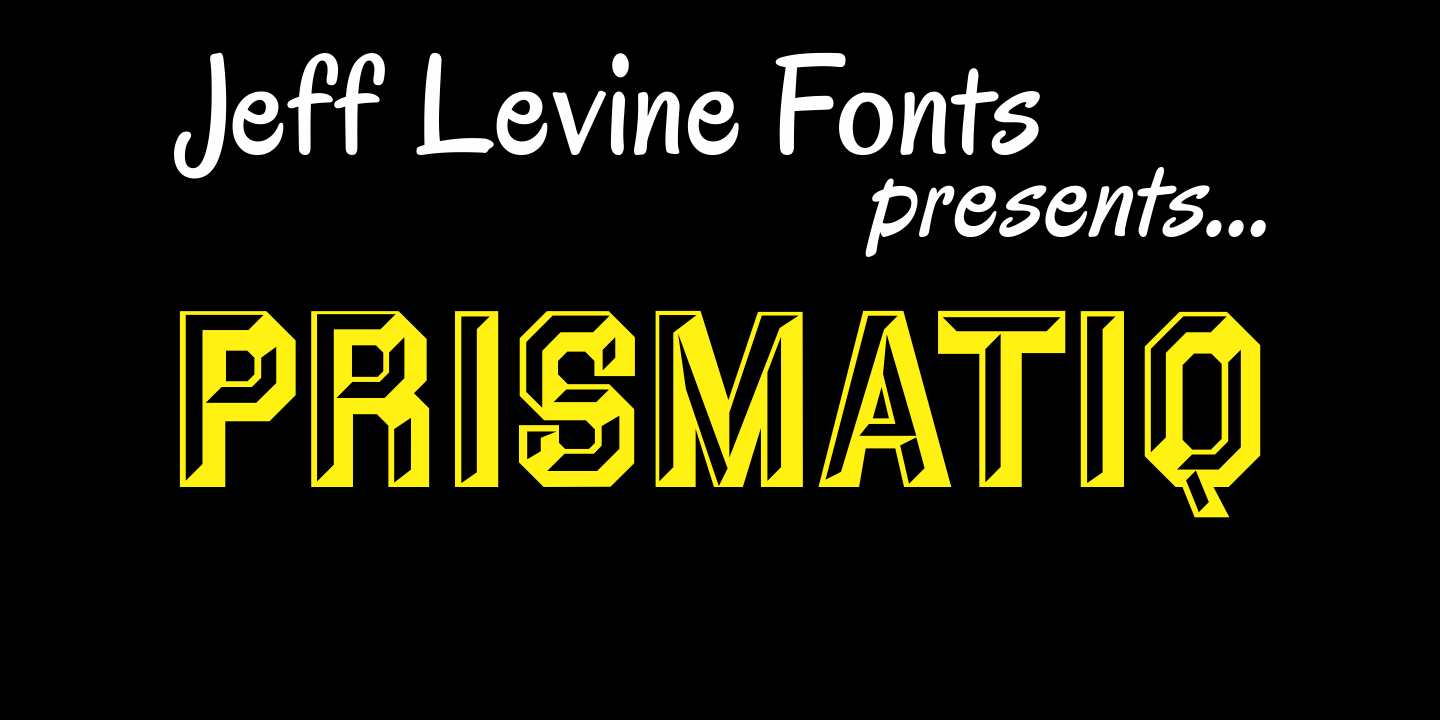
Prismatiq
Prismatiq JNL was modeled from lettering found in a French alphabet book from the turn of the last century - the type sample appearing online at an image sharing site. All of the imperfections of hand-lettering were left intact.
This is a limited character set comprising A-Z, 1-0, basic punctuation, forward slash and dollar and cents signs, and is best used in large headline applications.